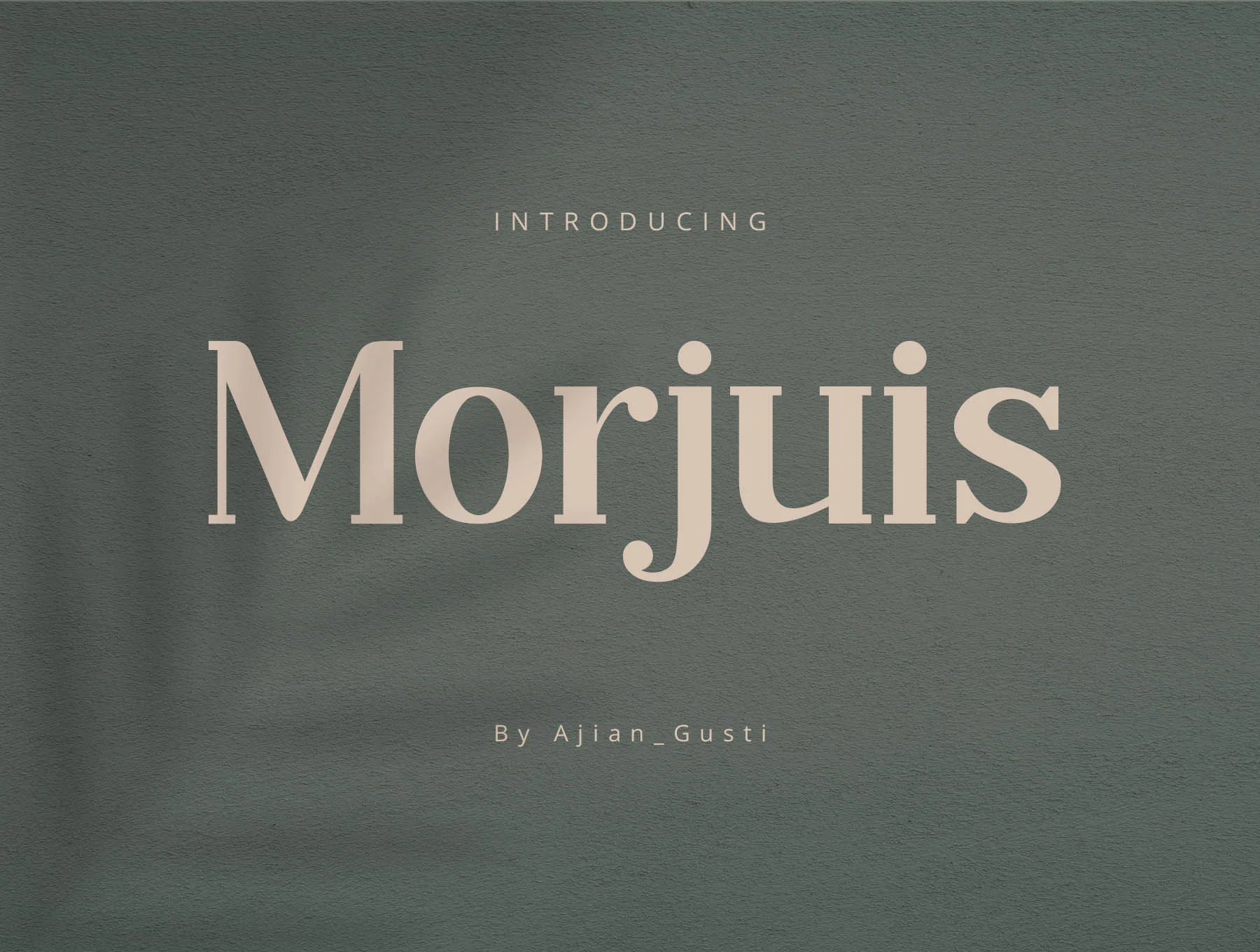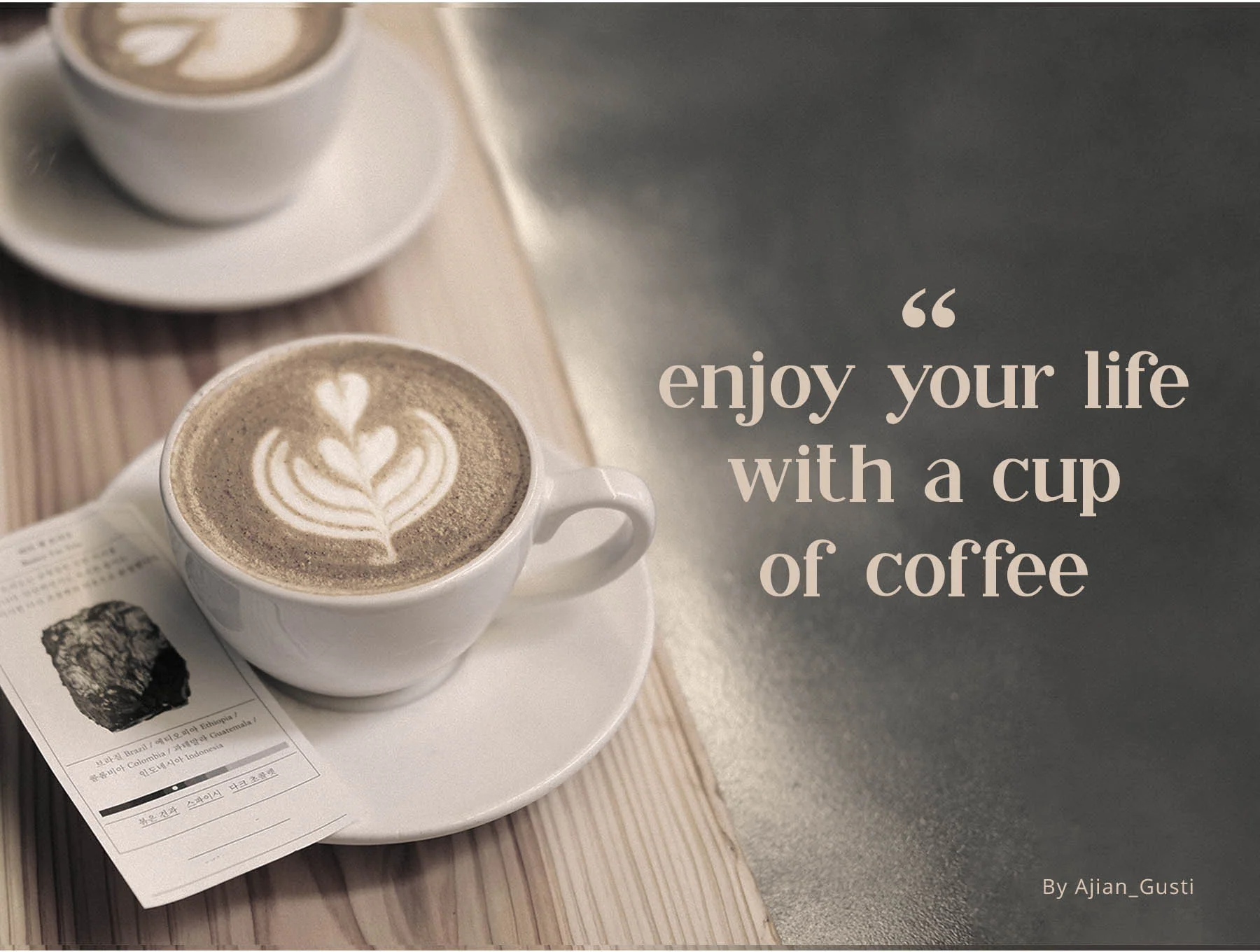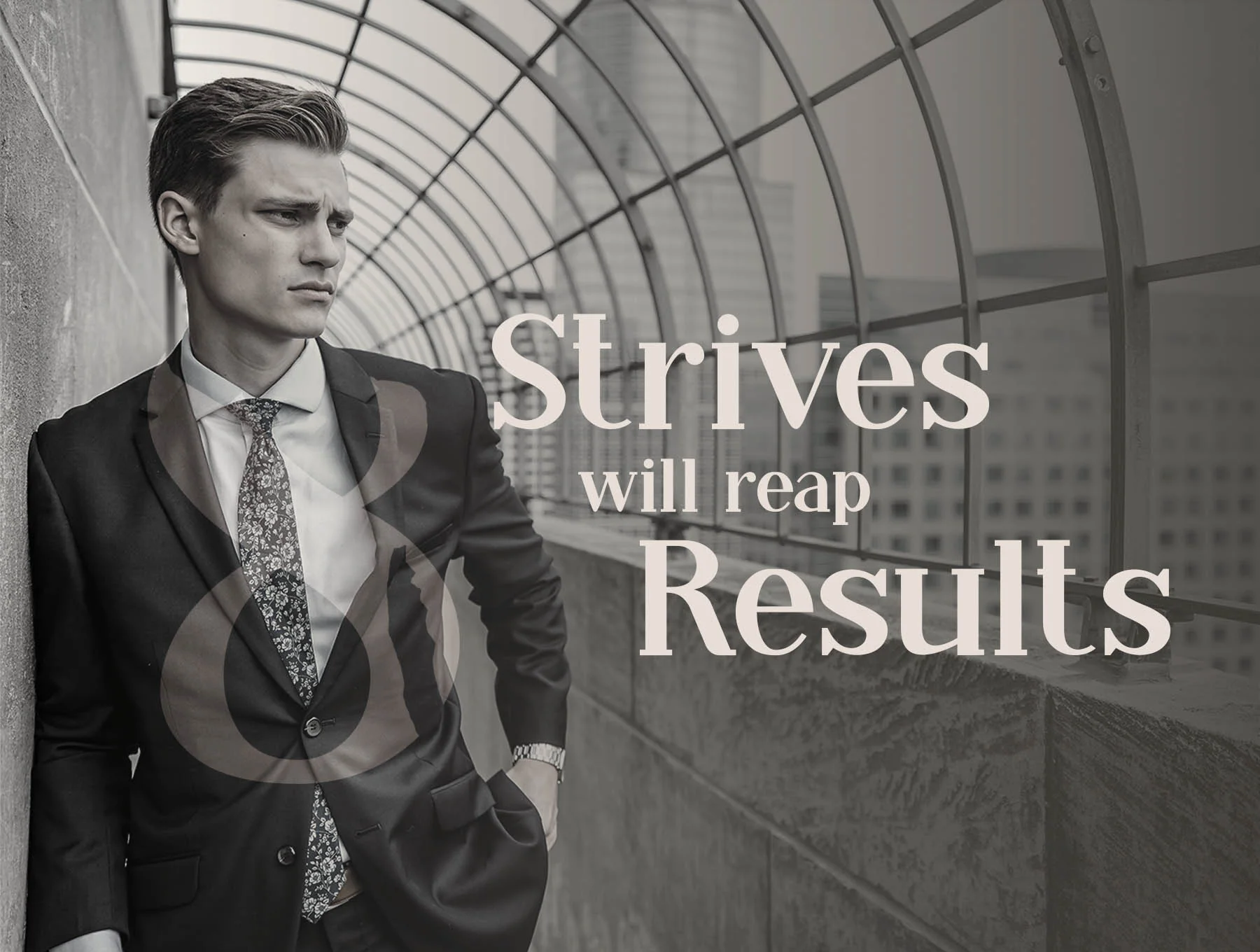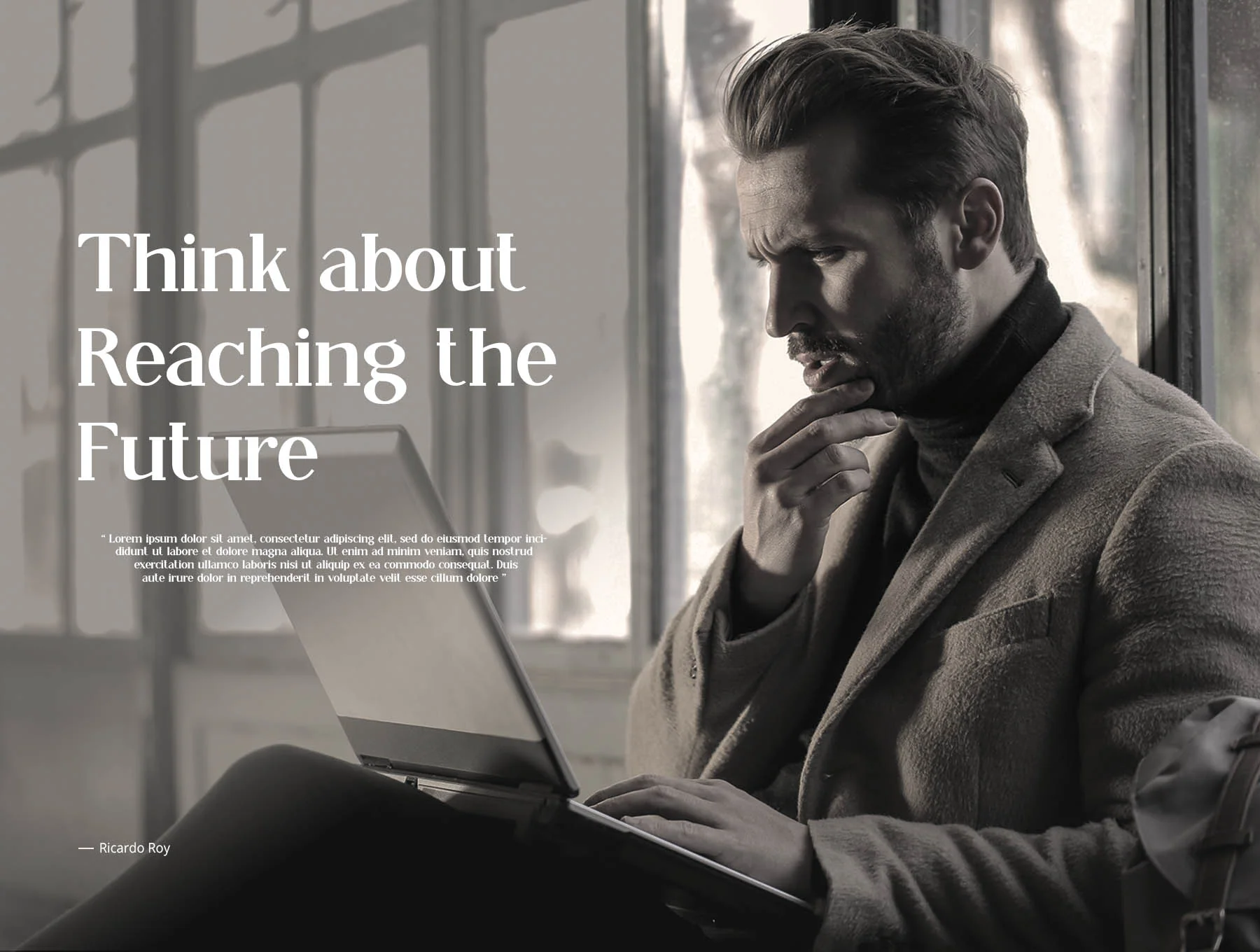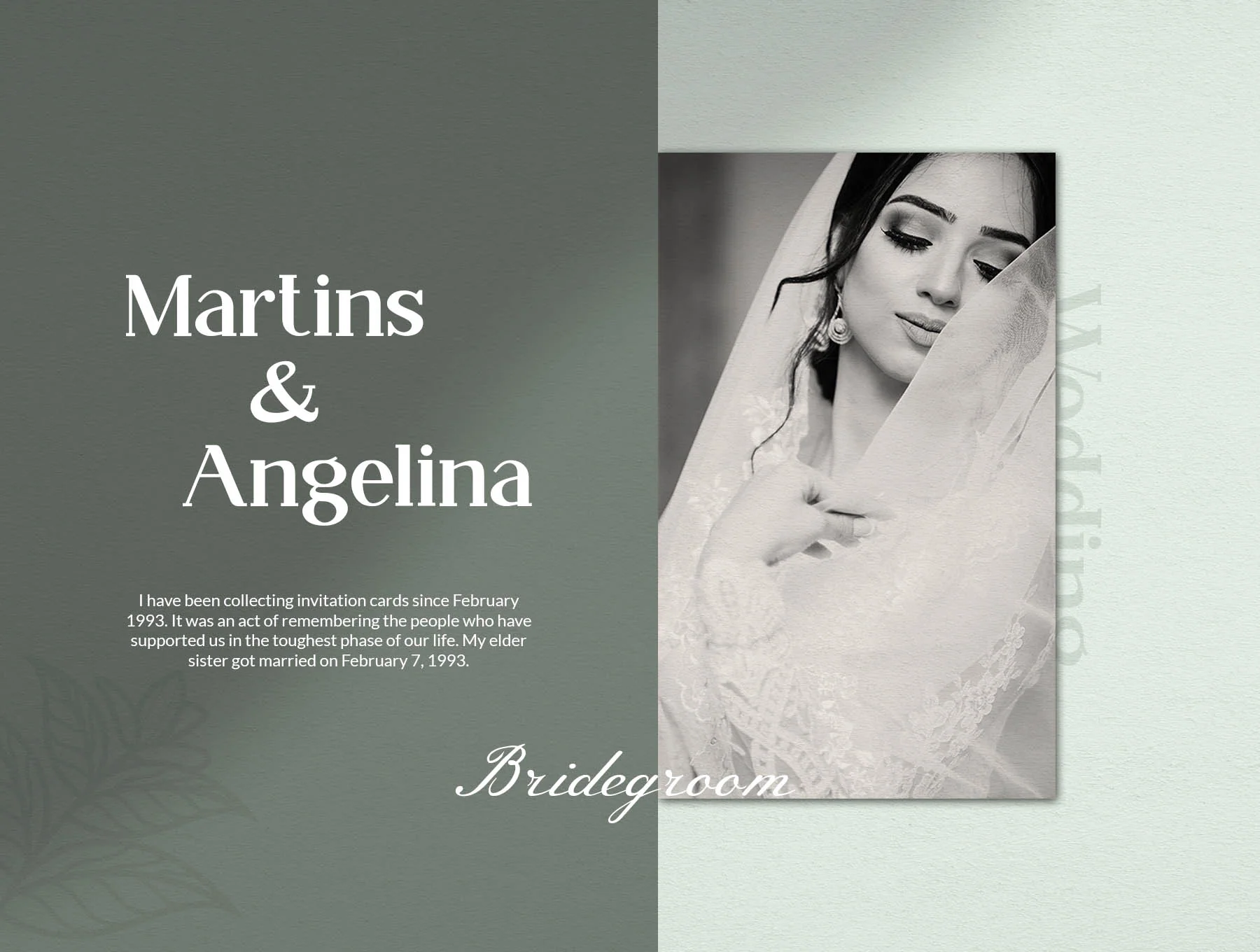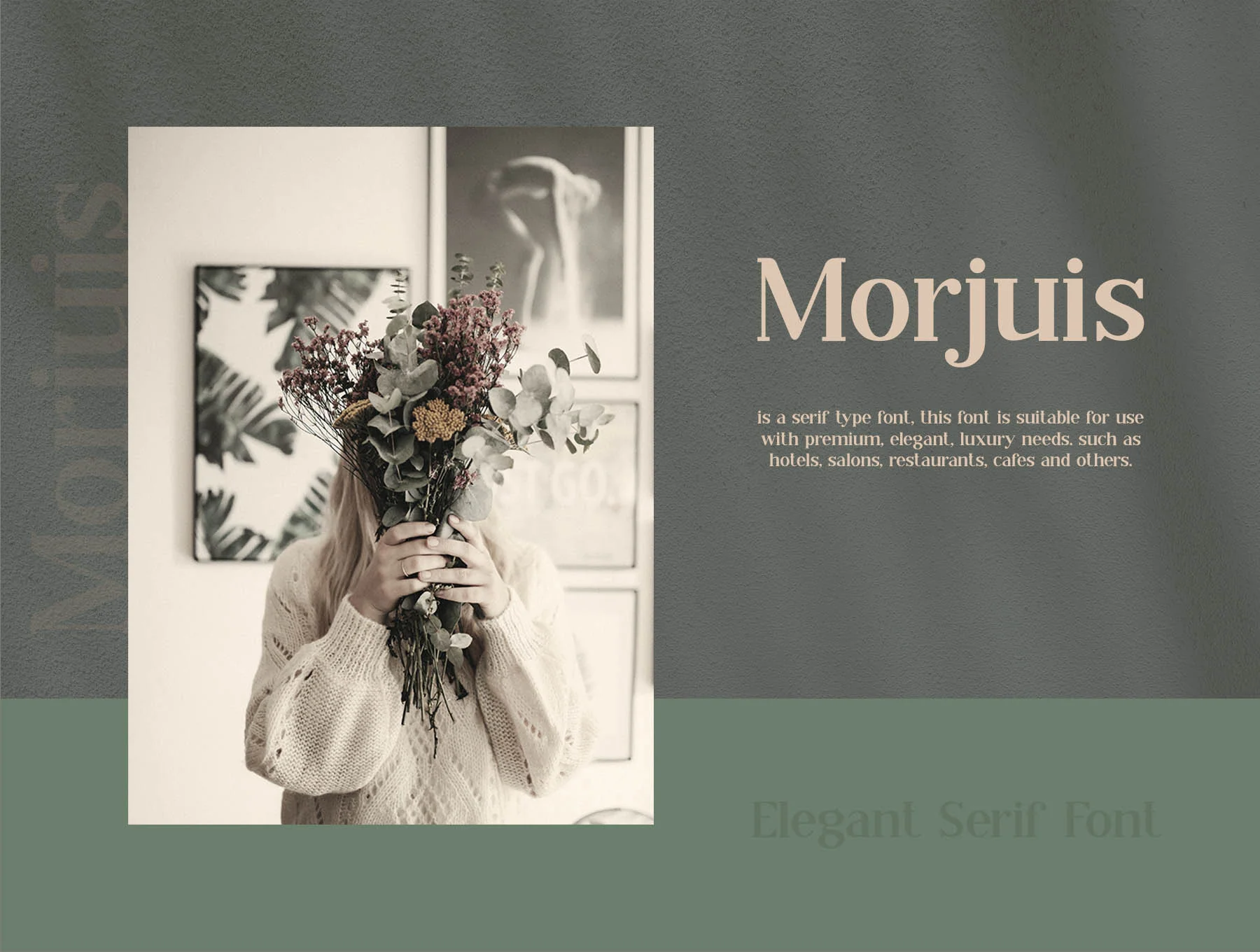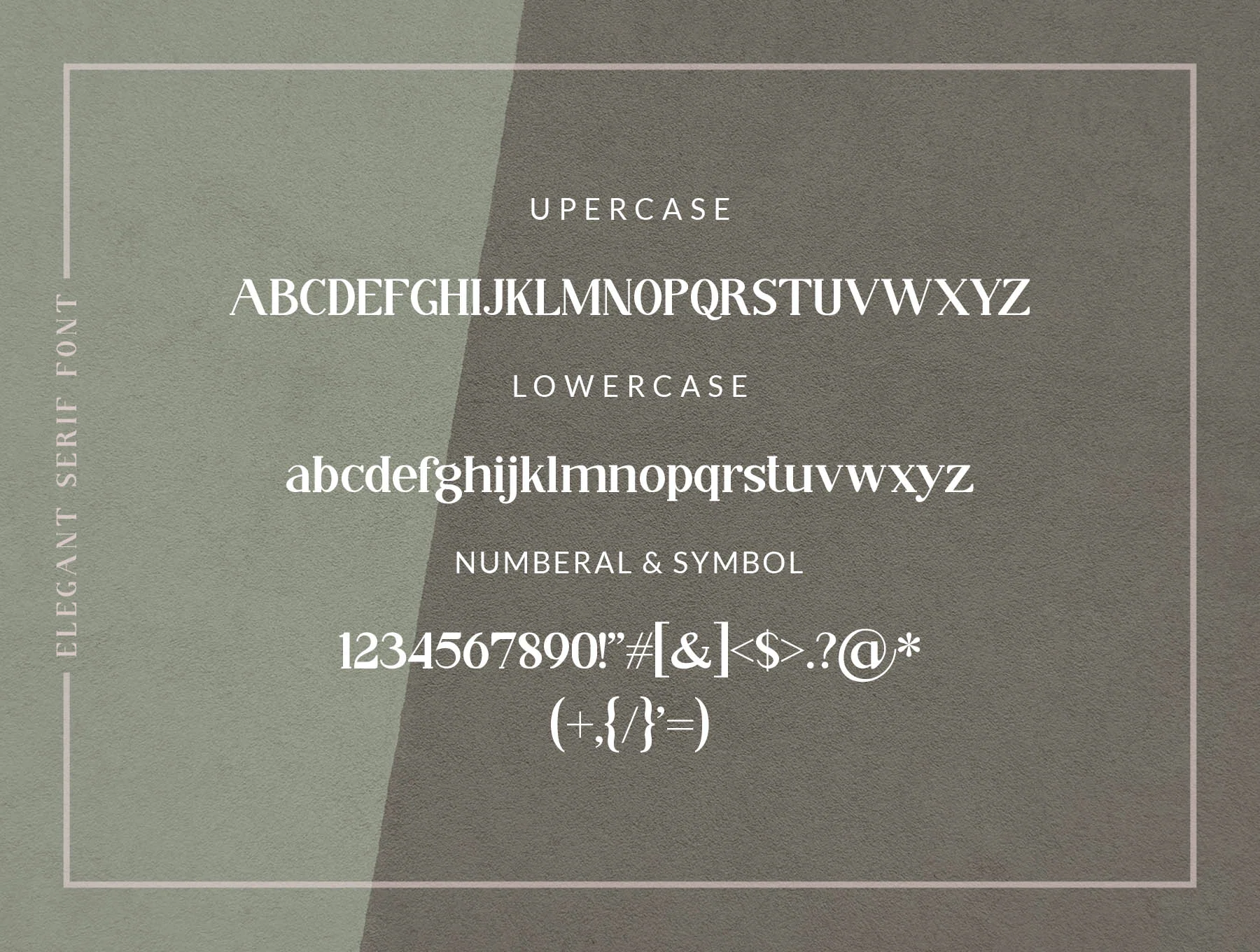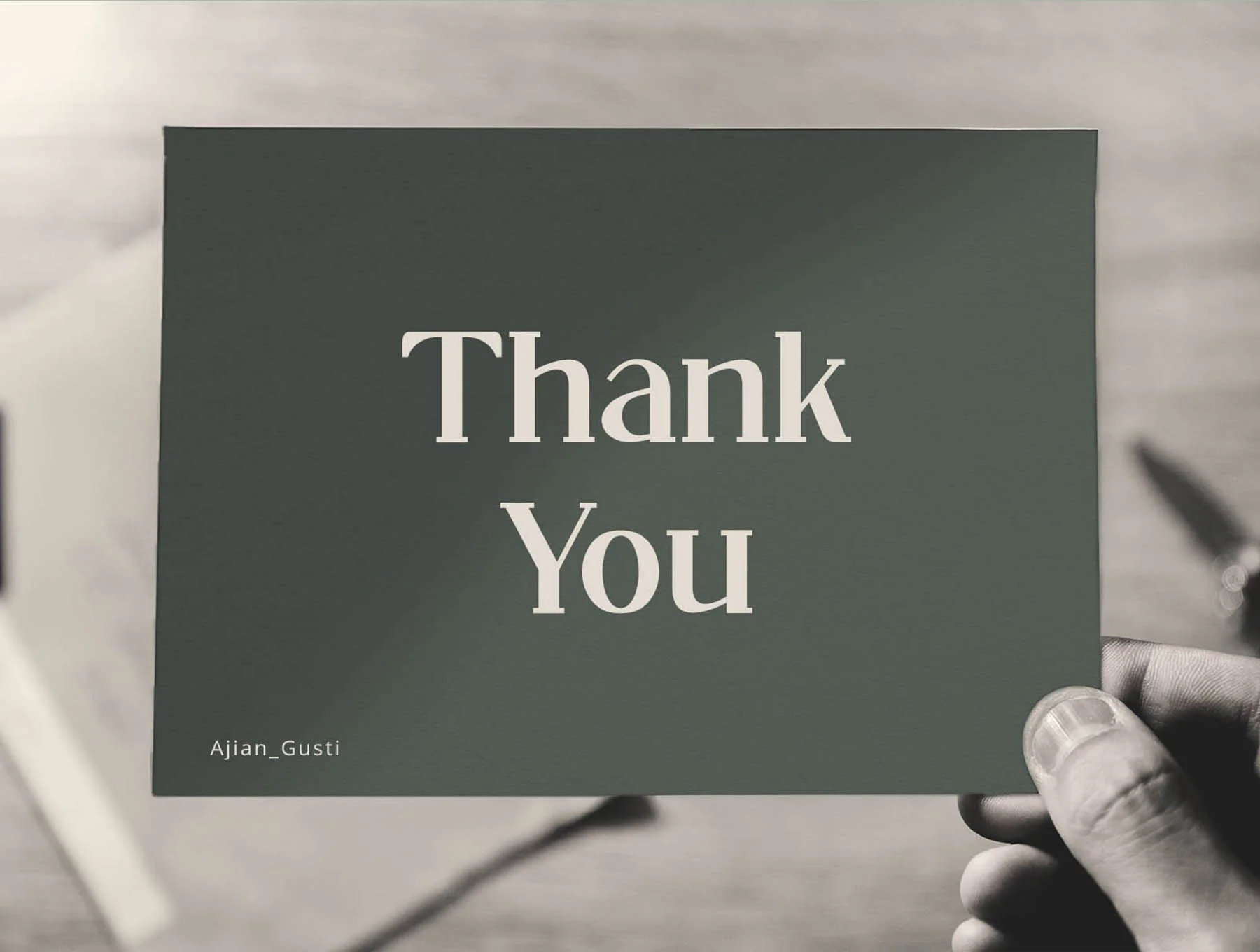
Morjuis - Serift Font Typeface
Serift typeface design
Capital Letters
Small Letters
Optional Letter Ligatures
Balya is a serif typeface crafted for premium, refined, and luxurious designs. It works beautifully for hotels, salons, restaurants, cafes, and similar brands, adding an elegant and charming touch to every project.